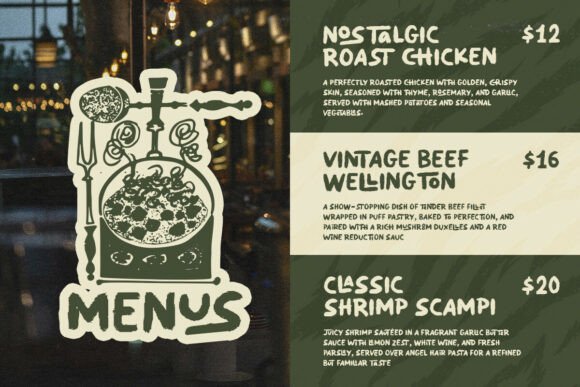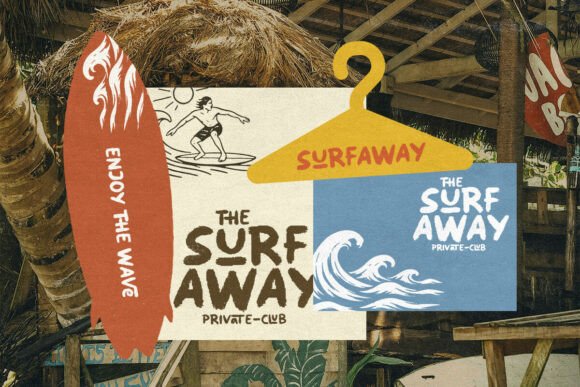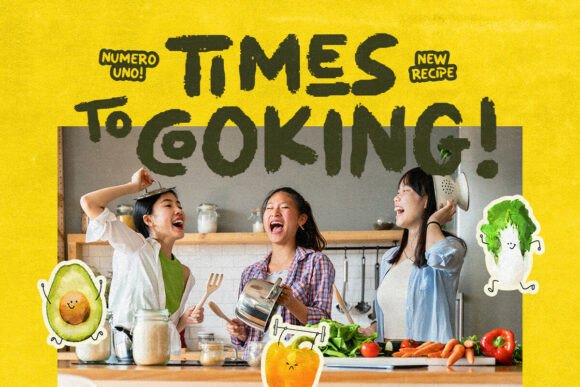
Introduction to Hustle Jungle Font
Unleash a raw, untamed energy with The Hustle Jungle font.
This display typeface is a celebration of rebellion and youthful vigor, featuring jagged, brush-like edges that look as if they were carved directly into a rainforest floor The Hustle Jungle typeface is built for brands that aren’t afraid to be loud, making it the ultimate tool for streetwear labels, extreme sports graphics, and edgy music posters.
Key Features of Hustle Jungle Font
Hustle Jungle Font offers exceptional quality and versatility, making it a valuable addition to your design toolkit. Whether you’re creating for personal projects or commercial use, Hustle Jungle Font delivers professional results.